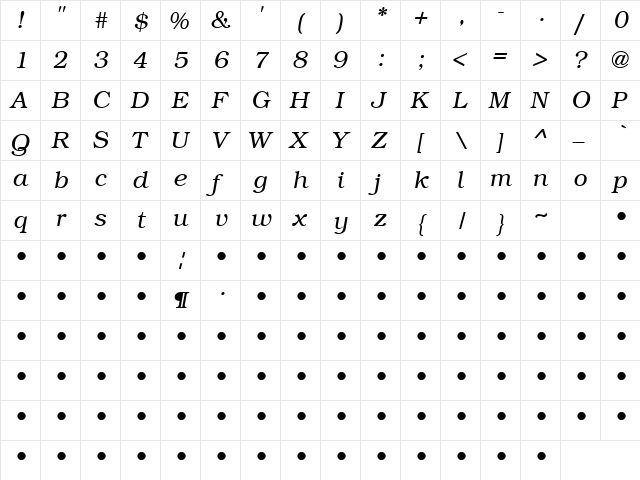
No Surprise 1 Italic
Design Context for No Surprise 1 Typeface
No Surprise 1 is a composed and adaptable typeface that performs quietly and consistently across a wide range of design contexts. The dynamic lean of this cut emphasises speed and emphasis in any layout.
Pro Tip: Try No Surprise 1 for annotation and caption copy alongside an upright companion — the contrast in angle creates a dynamic but ordered typographic system.